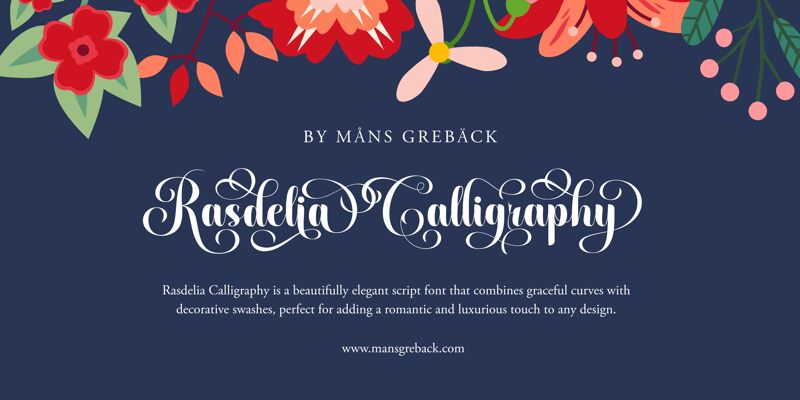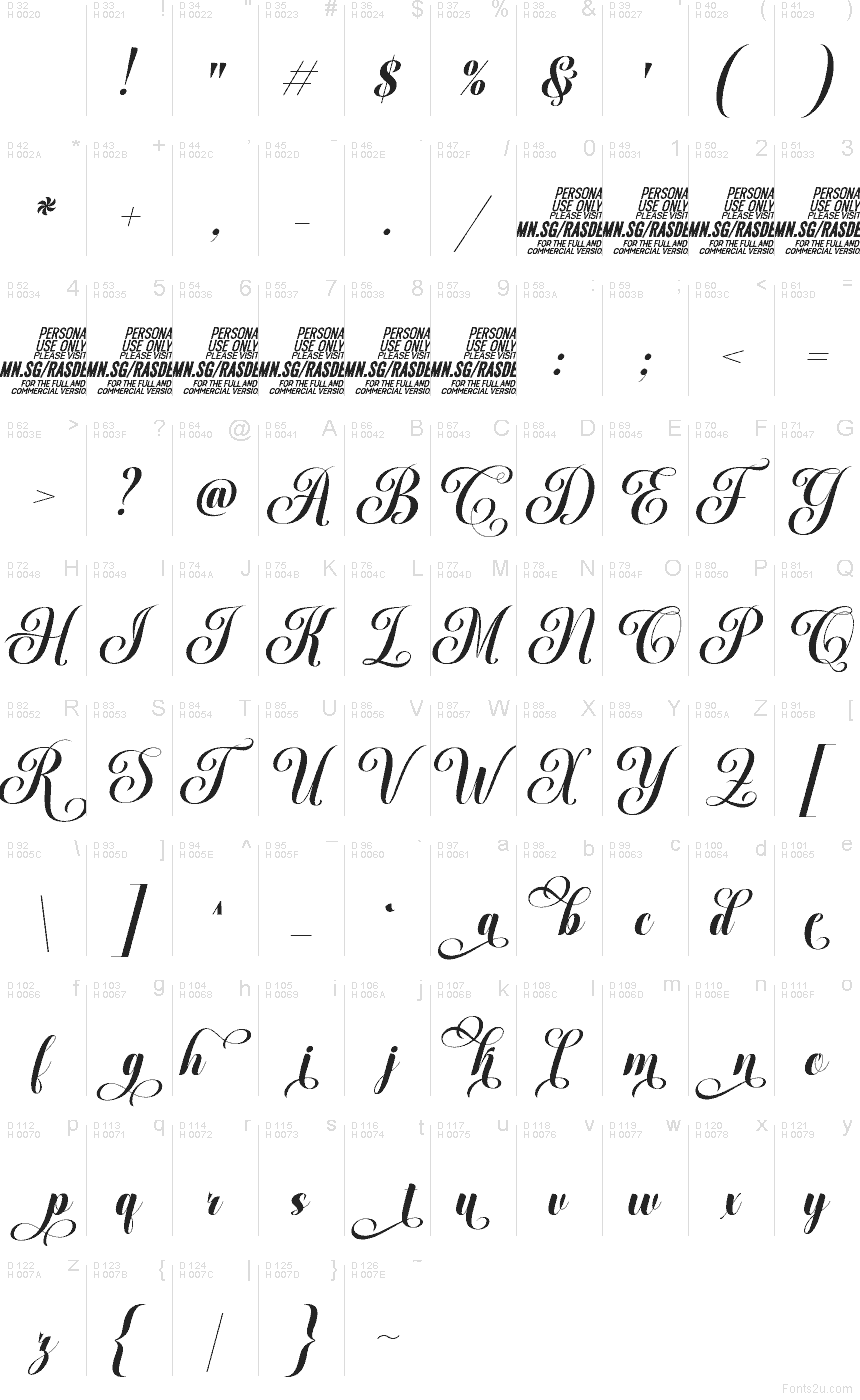
Rasdelia Swashed PERSONAL Italic
Rasdelia Swashed, a free calligraphy font from Mans Greback AB, leans into romantic copperplate drama with long looping swashes and a steep, flowing slant. The letters feel airy and theatrical, pairing hairline curves with fuller strokes so the script keeps its elegance even when the flourishes sweep wide.
This free font fits branding, wedding stationery, beauty packaging, book covers, and social media headers where a name or short phrase can take the spotlight. It also works well for title cards and monograms, because the extended entry and exit strokes give even a few letters a finished, ornamental presence.